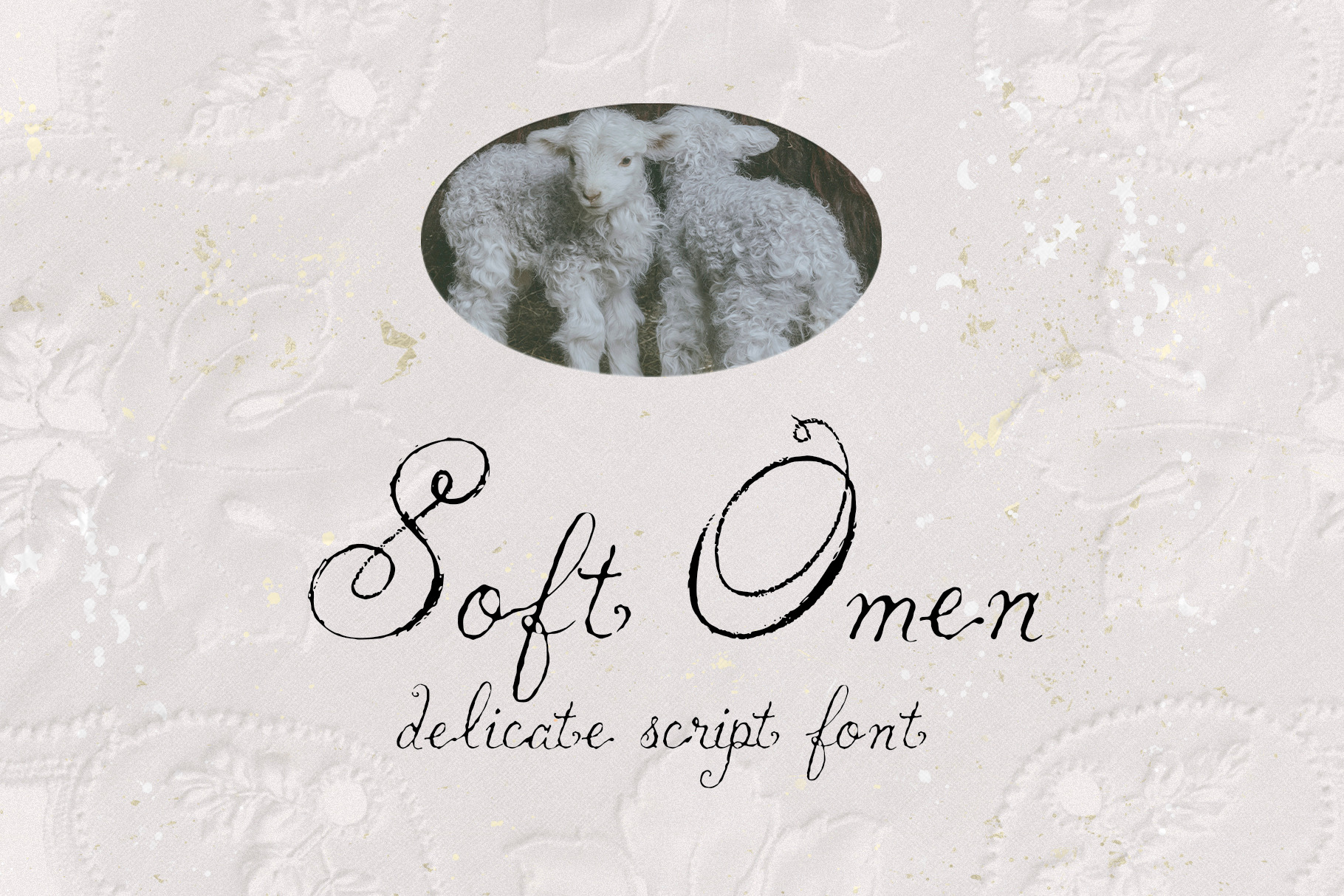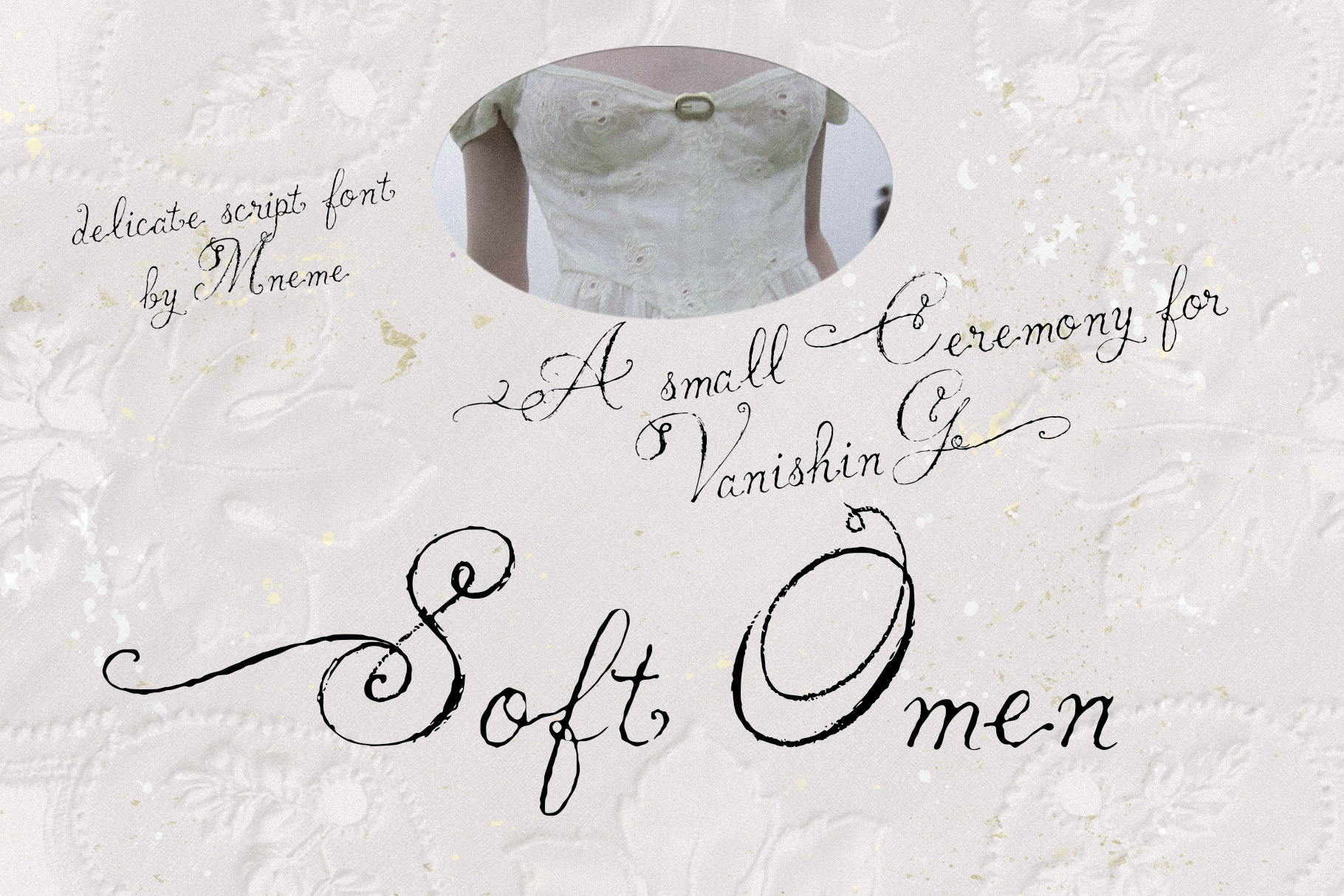
Soft Omen: Delicate Script Font
Soft Omen is a delicate ornamental script font with fragile loops, antique curves, and a soft handwritten rhythm.
Use it for wedding invitations, romantic logos, perfume labels, packaging, editorial layouts, book covers, stationery, social posts, quotes, branding, and delicate decorative typography.
The uppercase letters are expressive and ornamental, while the lowercase keeps the text graceful and readable. Soft Omen works beautifully for short phrases, names, titles, elegant headers, invitations, and poetic display text.
Decorative alternates / swash characters
Wedding invitations, bridal stationery, romantic branding, perfume labels, packaging, logos, editorial layouts, book covers, poetry graphics, social media posts, boutique identities, quote designs, and elegant display typography.